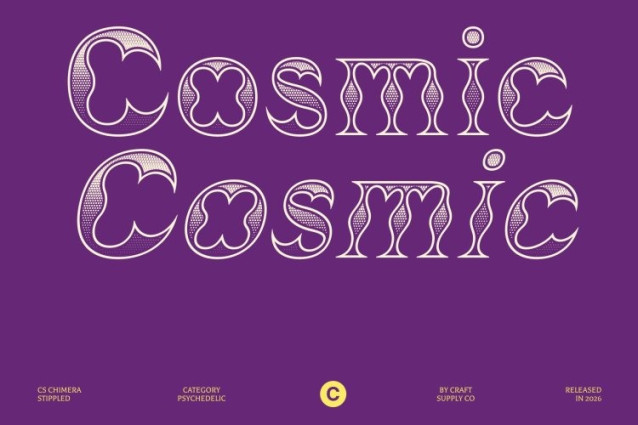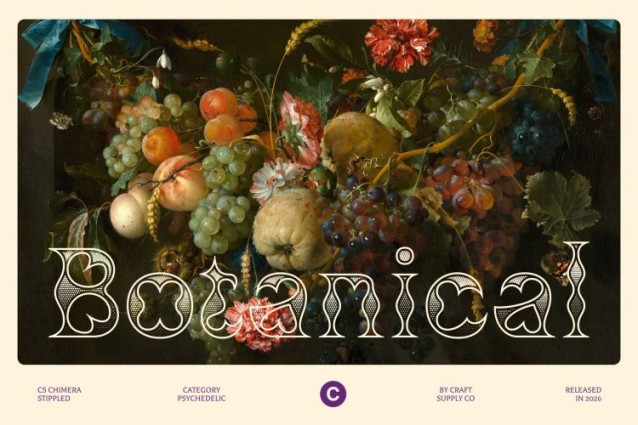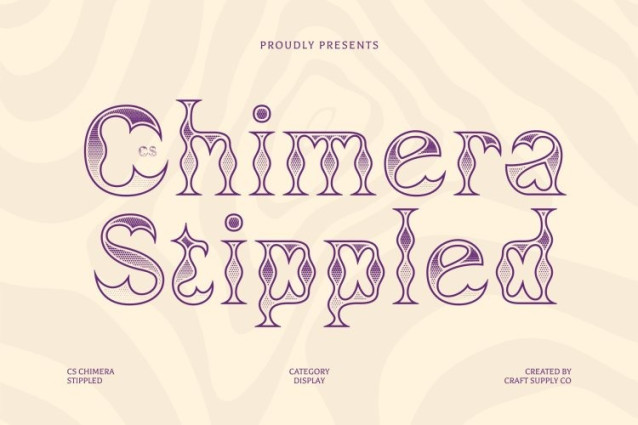
CS Chimera Stippled Font
CS Chimera Stippled Font – This is a striking display font that blends psychedelic and funky design elements into a bold and expressive typographic style. Inspired by the vibrant visual culture of the 1960s and 1970s, its letterforms feature flowing curves, swirling shapes, and dynamic distortions that create a lively and visually captivating effect.
Funky Forms with Artistic Stippled Texture
The unconventional letterforms of this font bring a cheerful and imaginative energy to the design. Enhanced with a stippled texture, the letters gain a dotted surface inspired by traditional stippling and engraving techniques. This textured detail adds depth and handcrafted character, enriching the psychedelic curves while maintaining the font’s bold and funky personality.
Retro Expression with Creative Impact
Combining psychedelic movement with subtle textural detail, this font delivers a design that feels both nostalgic and visually fresh. The swirling forms create rhythmic visual motion, while the stippled finish adds dimension and artistic nuance, making the typography feel vibrant and expressive.
Perfect for Music, Posters, and Creative Projects
This is ideal for projects that celebrate bold creativity and energetic visual identity. It works perfectly for music posters, festival graphics, album covers, merchandise, and experimental branding. With its psychedelic forms and textured detailing, this font ensures your designs stand out with a distinctive, playful, and unforgettable style.